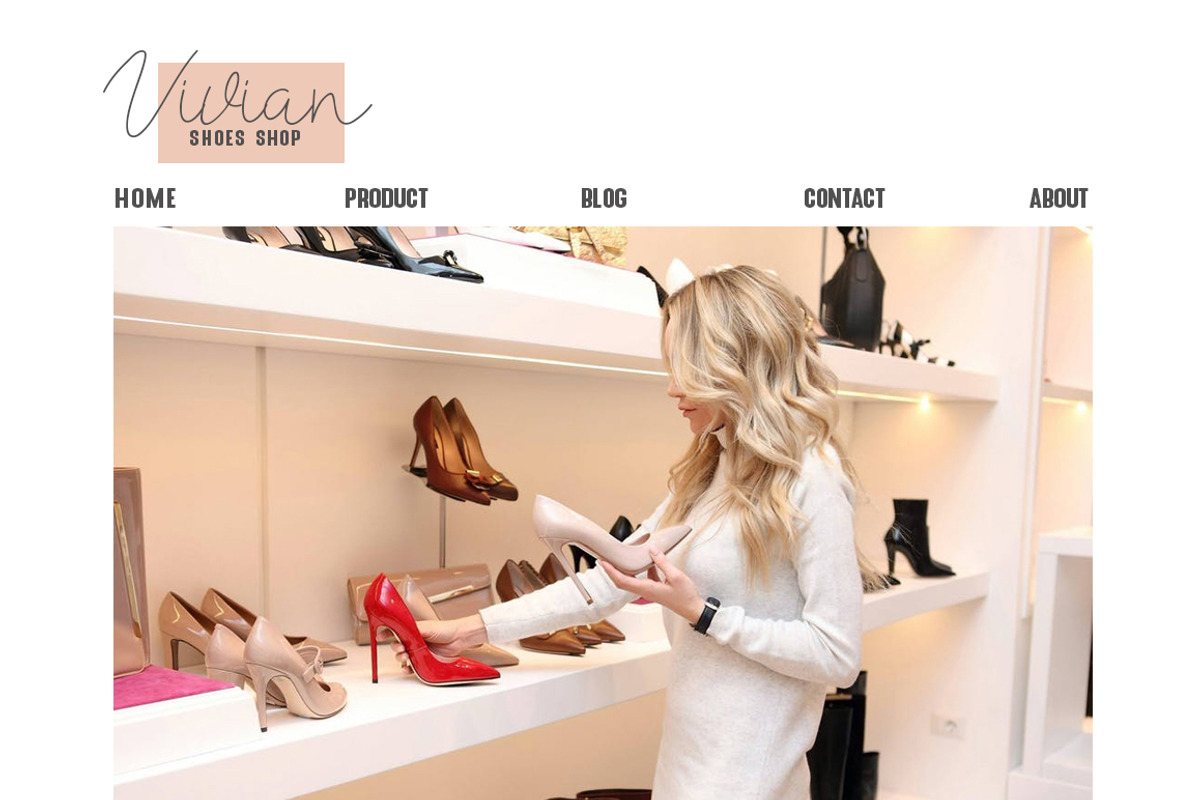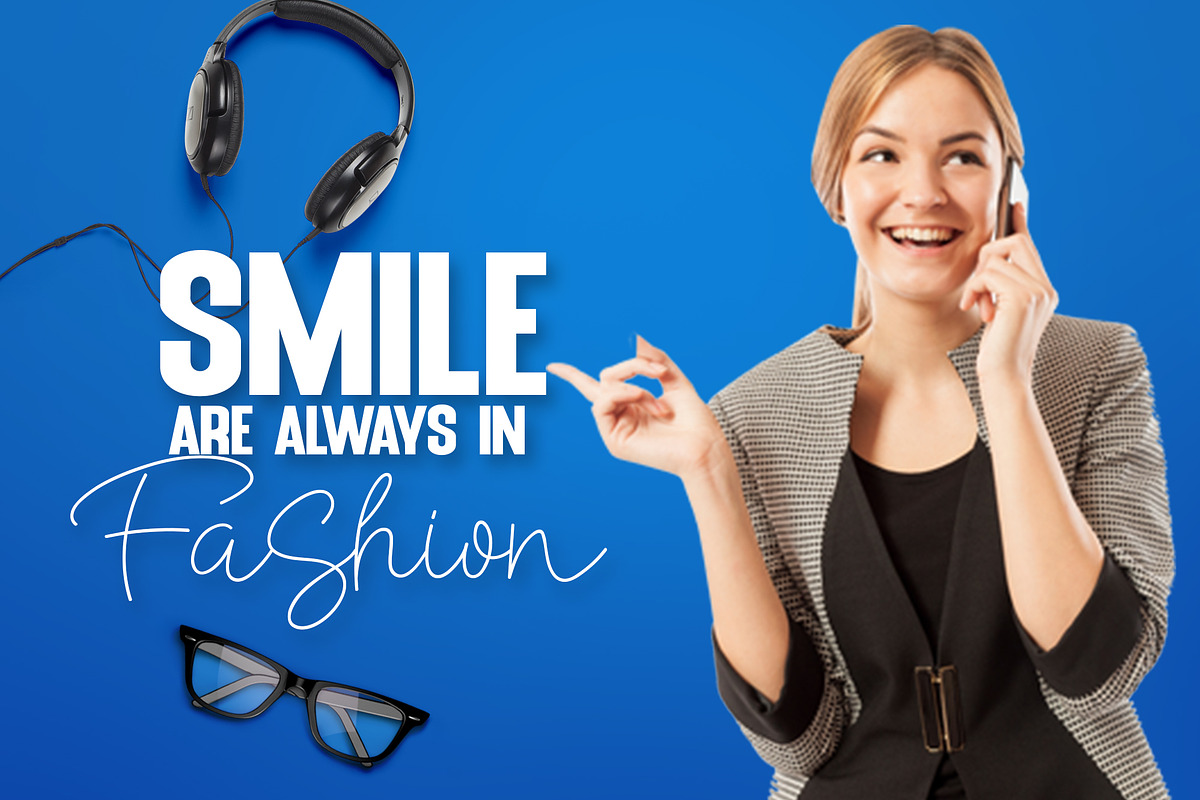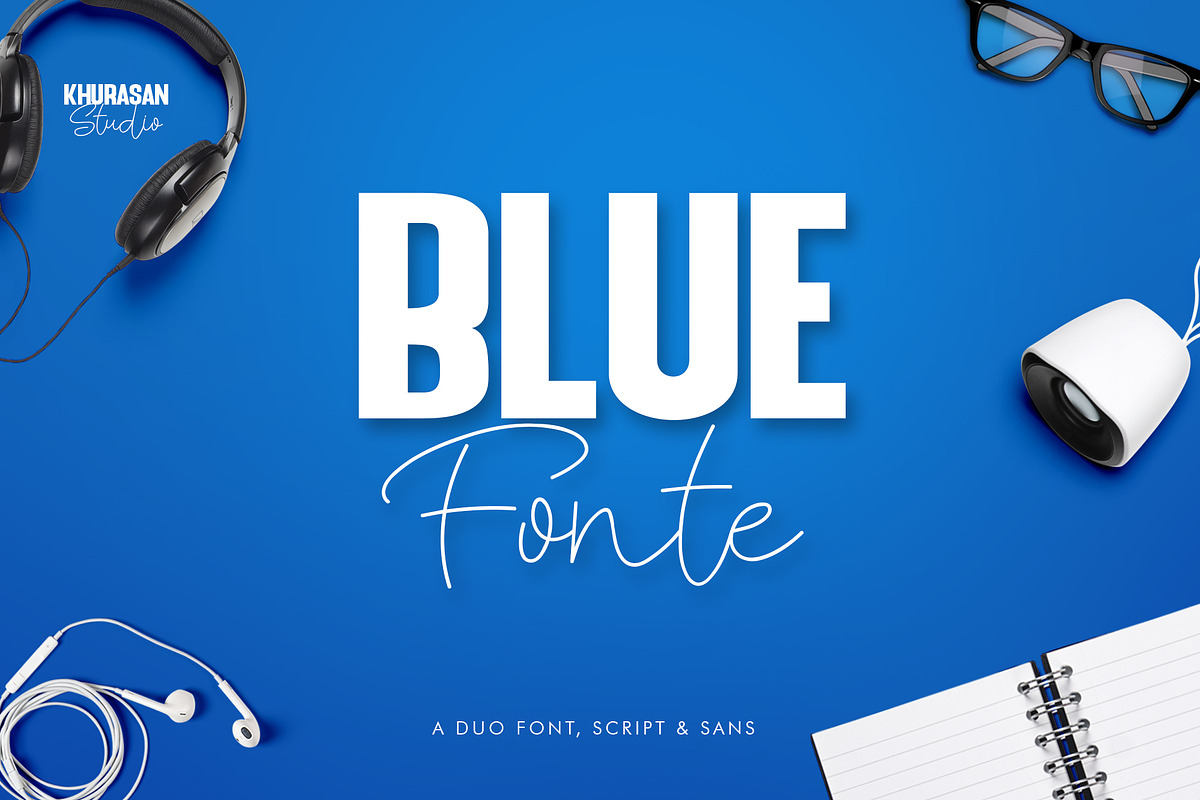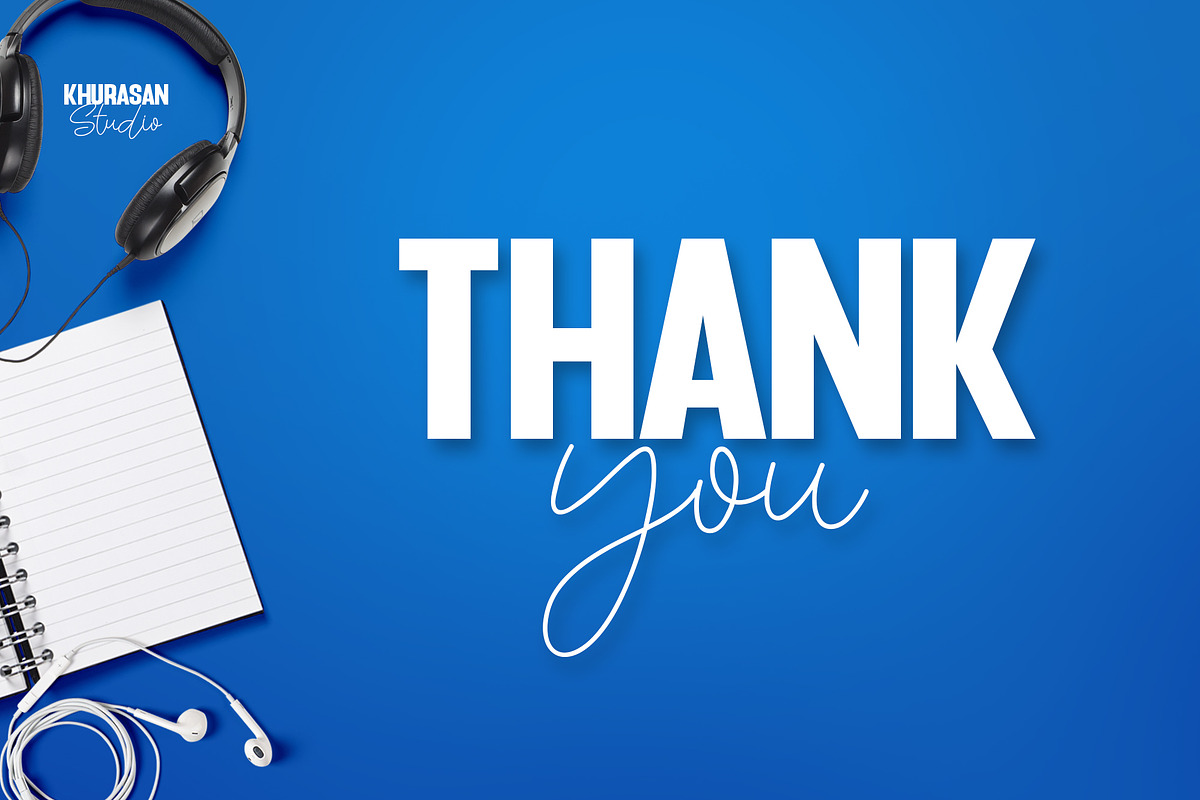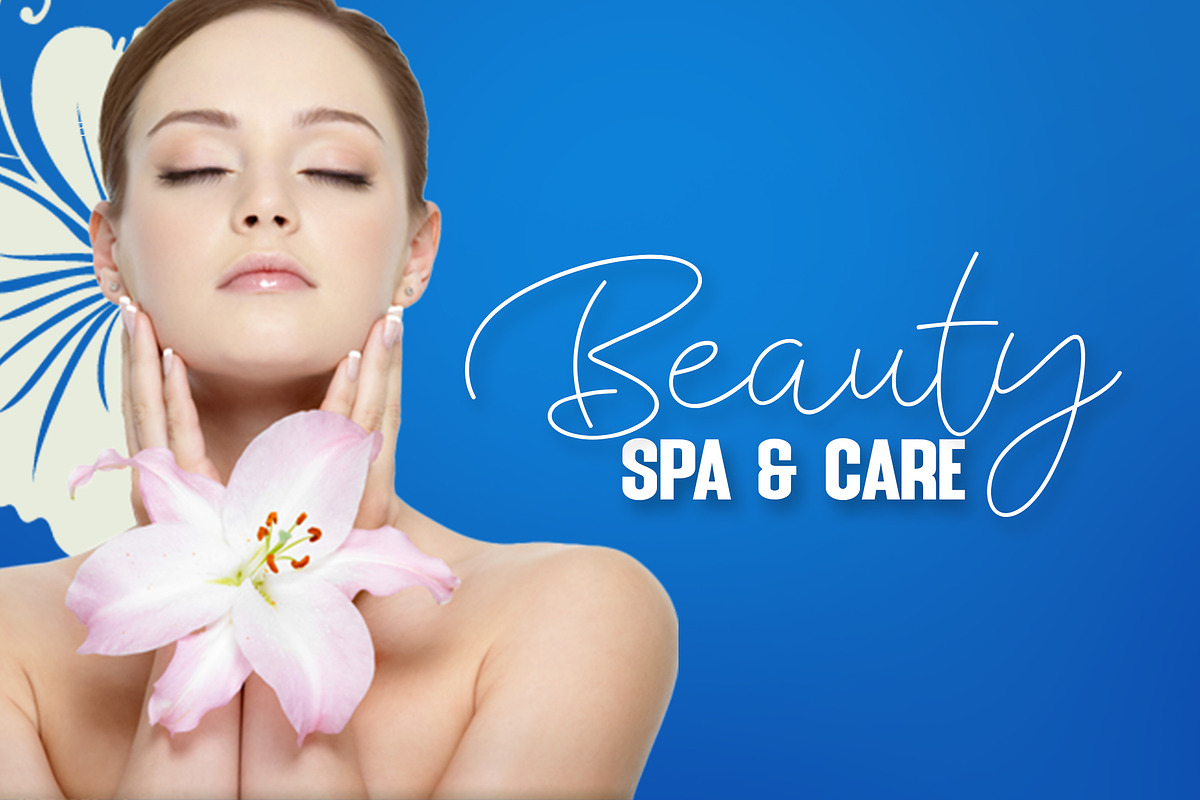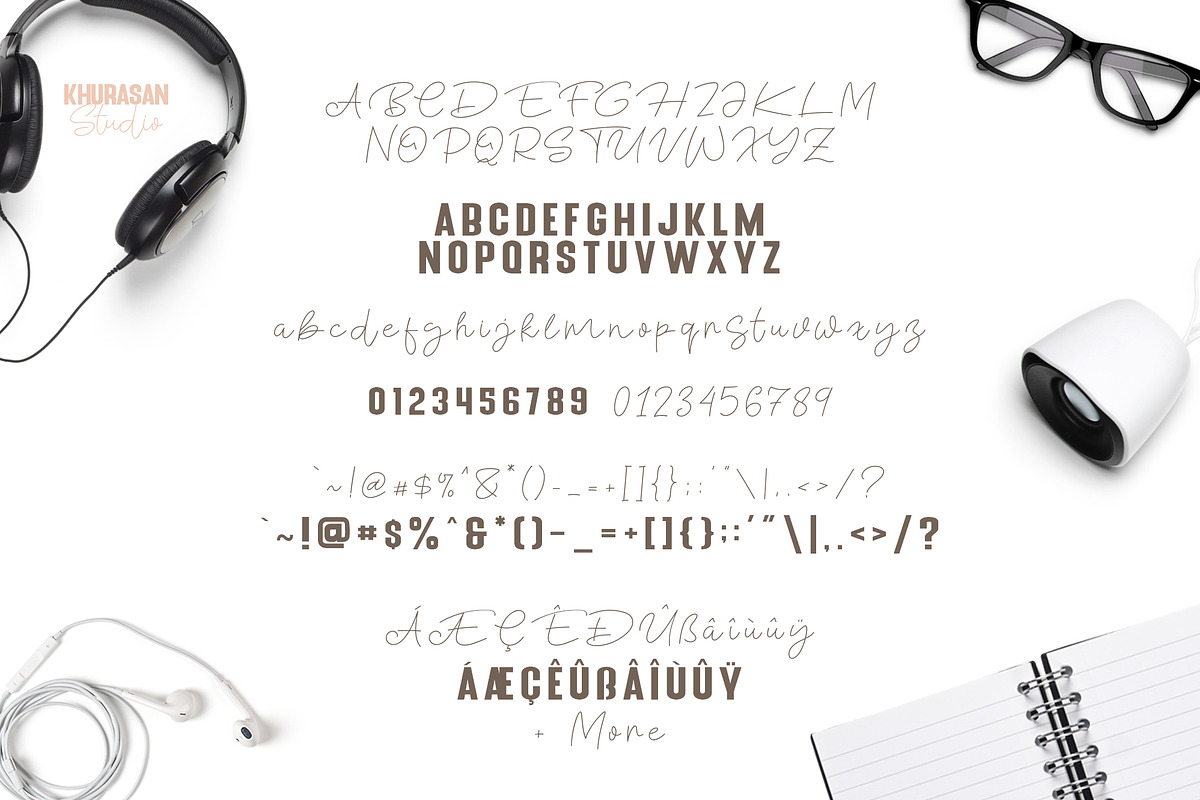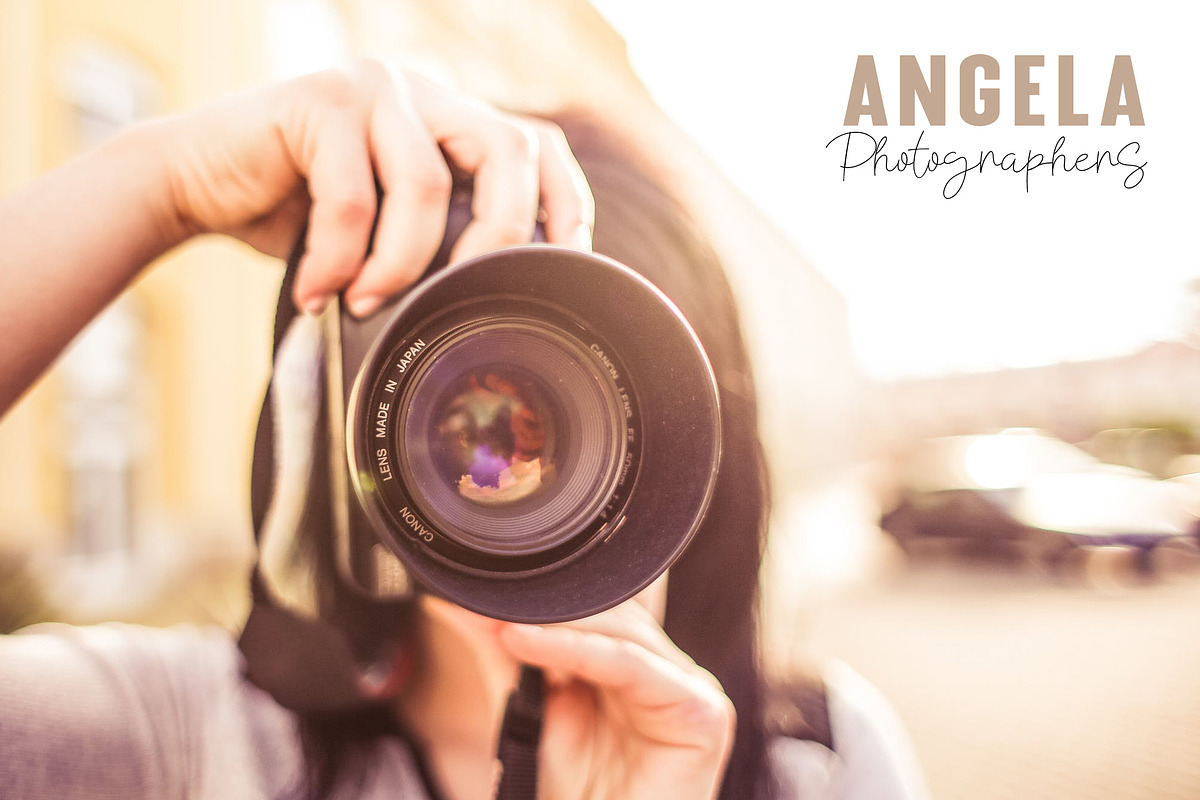
Blue Fonte Font Duo
Blue Fonte Font Duo, a handwriting script and sans nice font type. Blue Fonte it’s perfect for namecard, poster, logo, magazine, cover, banner, tshirt and headers, or even large-scale artwork…
Why Blue Fonte Font Duo is worth a look
Blue Fonte Font Duo by khurasan fits naturally into Branding, posters, packaging, typography.